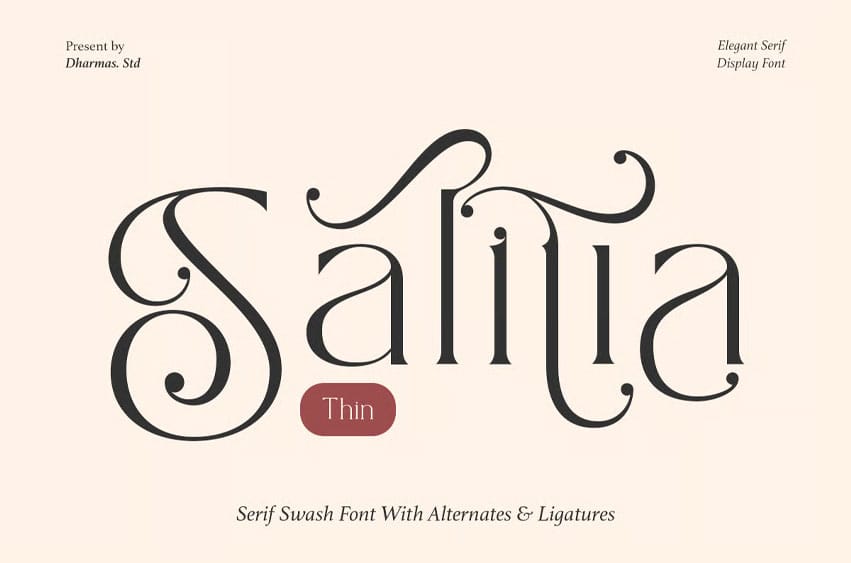
Salitia Font is a modern serif featuring tightly spaced letterforms reminiscent of the 80s and 90s, now making a stylish comeback. This Thin version offers a refined, elegant feel — perfect for branding and editorial projects.
Designed with beautiful swashes, unique ligatures, and versatile alternates, Salitia Thin is ideal for short texts and long words alike, such as headlines, logos, UI designs, magazine layouts, product descriptions, and more.